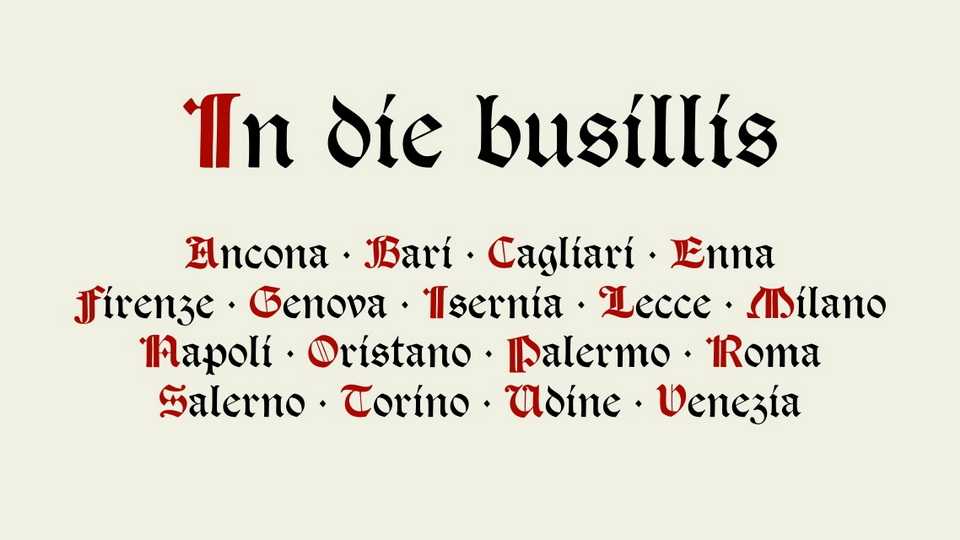
Download In Die Busillis font, a blackletter typeface based on scans of Tudor Black from 1878 designed by E.P. Prince and F. Tarrant for Miller & Richard.
Designer: Michele Casanova